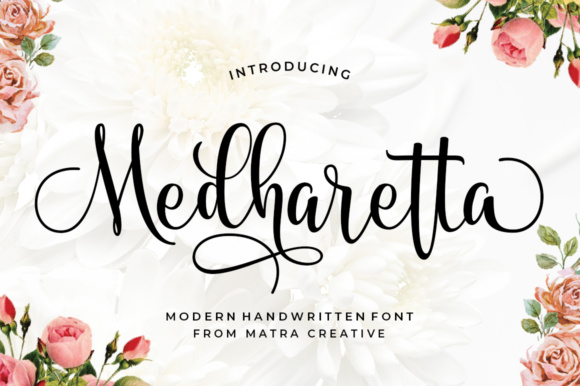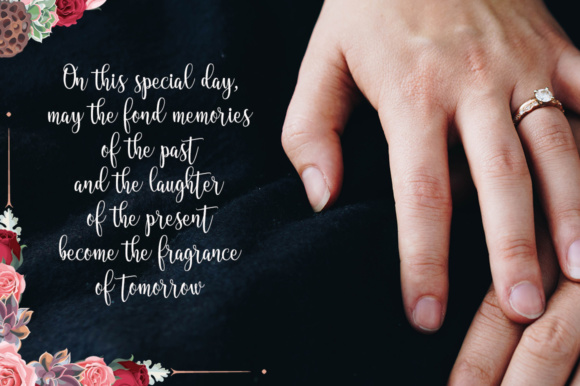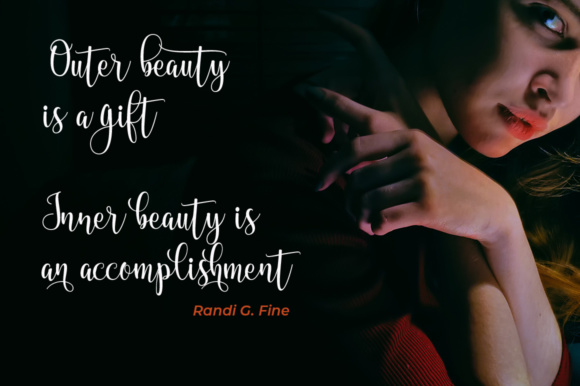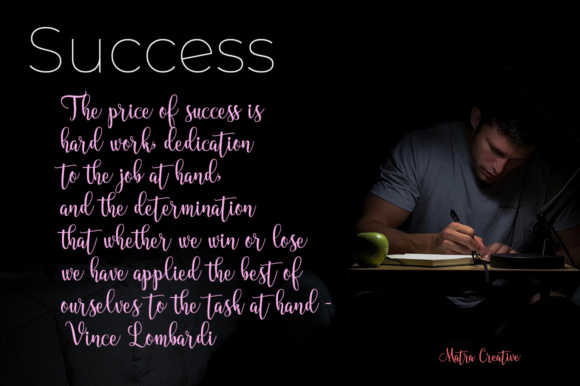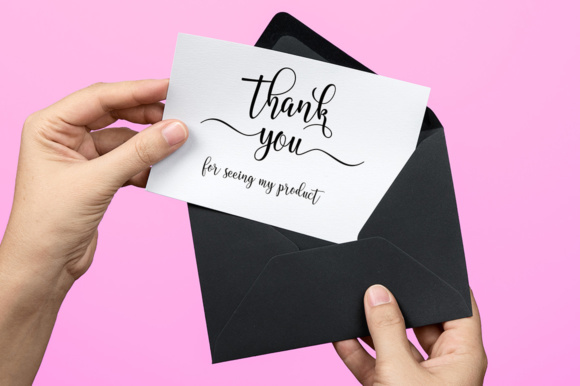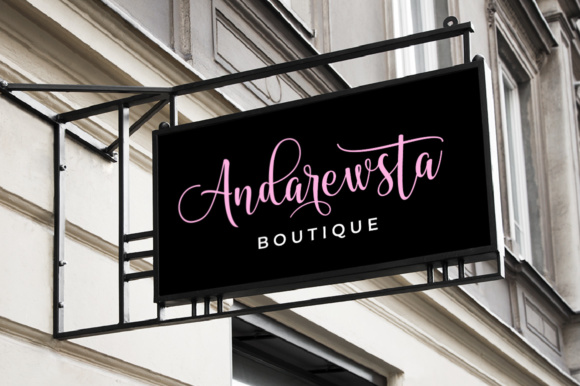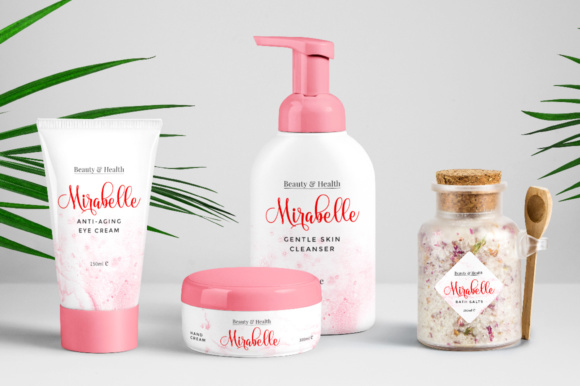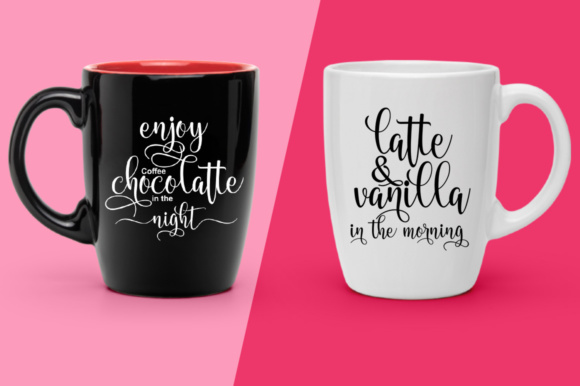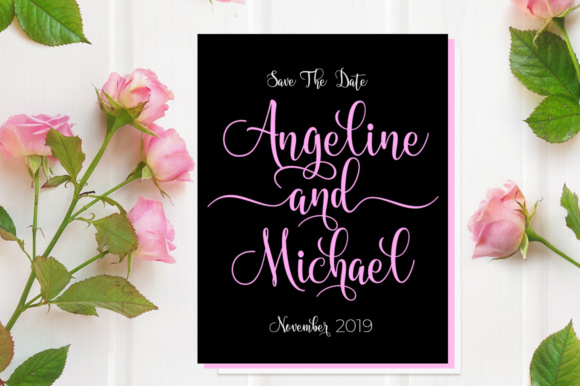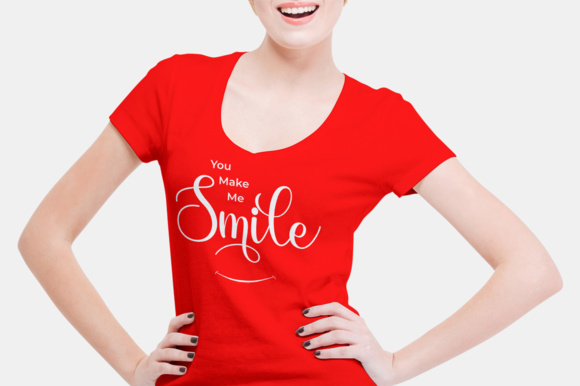
HomeScript FontsMedharetta Font Script Fonts Medharetta Font FacebookXPinterestWhatsApp Medharetta Font Poster 2 Medharetta Font Poster 3 Medharetta Font Poster 4 Medharetta Font Poster 5 Medharetta Font Poster 6 Medharetta Font Poster 7 Medharetta Font Poster 8 Medharetta Font Poster 9 Medharetta Font Poster 10 Medharetta Font Poster 11 Medharetta Font Poster 12 Medharetta Font Poster 13 About Medharetta Font Medharetta is a modern handwritten typeface which will ad a touch of elegance to every design. DOWNLOAD ON CREATIVE FABRICAThis font is sold and delivered by Creative Fabrica. Font Canyon may earn a commission if you buy through this link. People also explored Colbey Thin Font Linoblox Font Grindelwald Font Aquatrain Font Farm House Font Handroberg Font Vintage Diary Font Whisper Nature Font Strong Signature Font 291 0 TagsMedharetta Font Previous articlePeach Blush FontNext articleChiko & Owlie Font LEAVE A REPLY Cancel reply Comment: Please enter your comment! Name:* Please enter your name here Email:* You have entered an incorrect email address! Please enter your email address here Website: Save my name, email, and website in this browser for the next time I comment. Personal Use Free Wintersoul Personal Use Free Read more about this font Soulties Personal Use Free Read more about this font Theobald Personal Use Free Read more about this font Lovely Girl Personal Use Free Read more about this font BLOG Where to Buy American Fonts Online in 2024 Where to Buy American Fonts Online: The Ultimate Guide for 2024 Looking for the perfect American font to elevate your design projects? You're in the... Transform Your Website: Elevate Your Typography with 7 Best Web Font Generators Exploring Font Trends Modern Sans-Serif Fonts That Brands Love in 2025